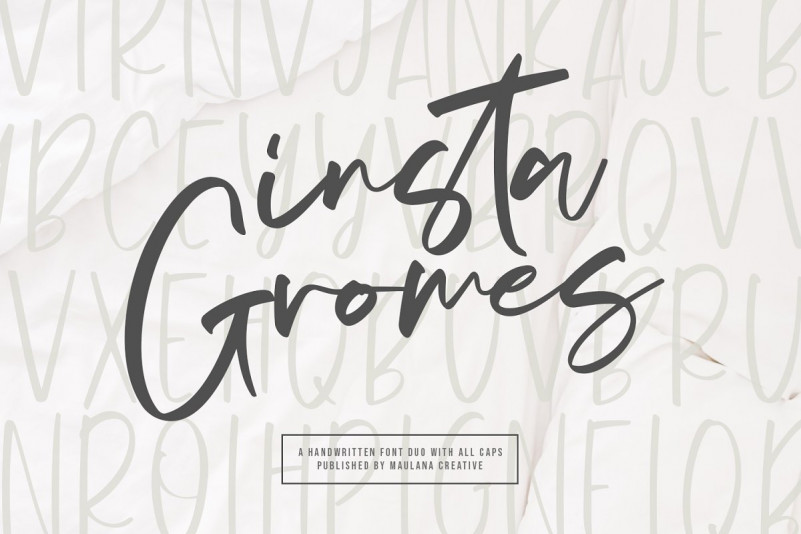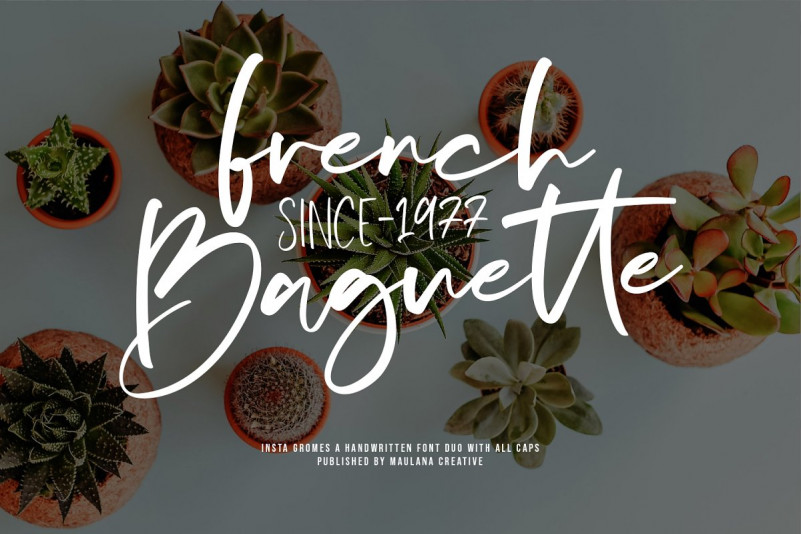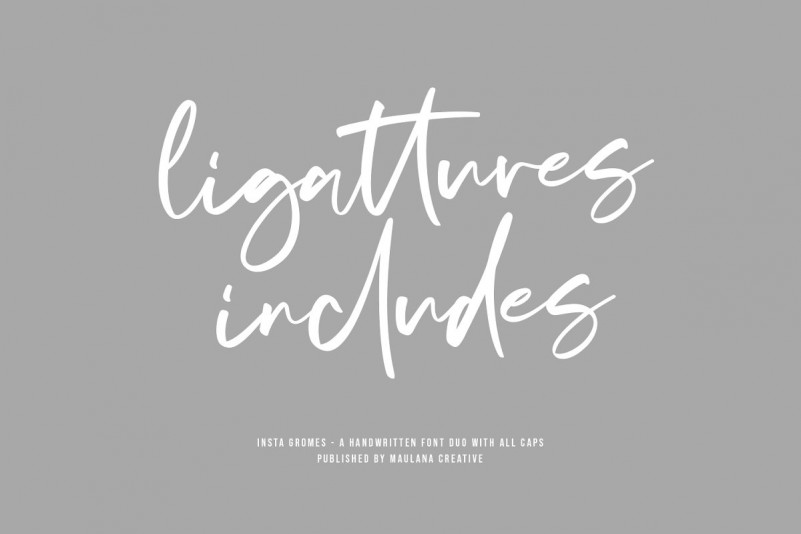
Insta Gromes Font
Give your designs an authentic handcrafted feel. “Insta Gromes – Font Duo” is perfectly suited to signature, stationery, logo, typography quotes, magazine or book cover, website header, clothing, branding, packaging design, instagram and more.